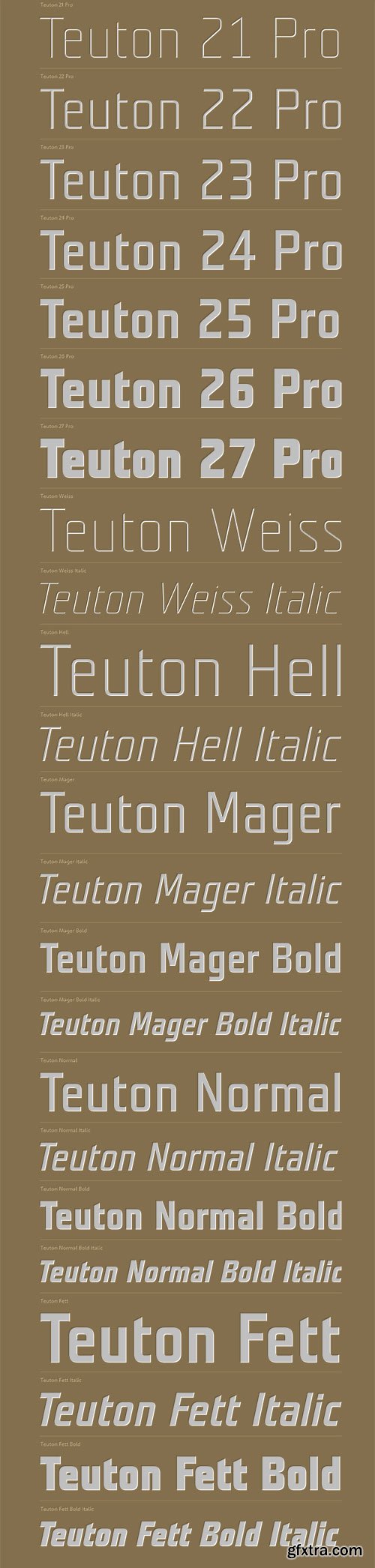
Teuton - Typeface for Graves,
The present font project is inspired by a tombstone inscription
on one German grave in northern Bohemia. Suitable combination:
Plagwitz, Modell. Teuton is ideal typeface for graves and posters,
for advertising as well as magazines.